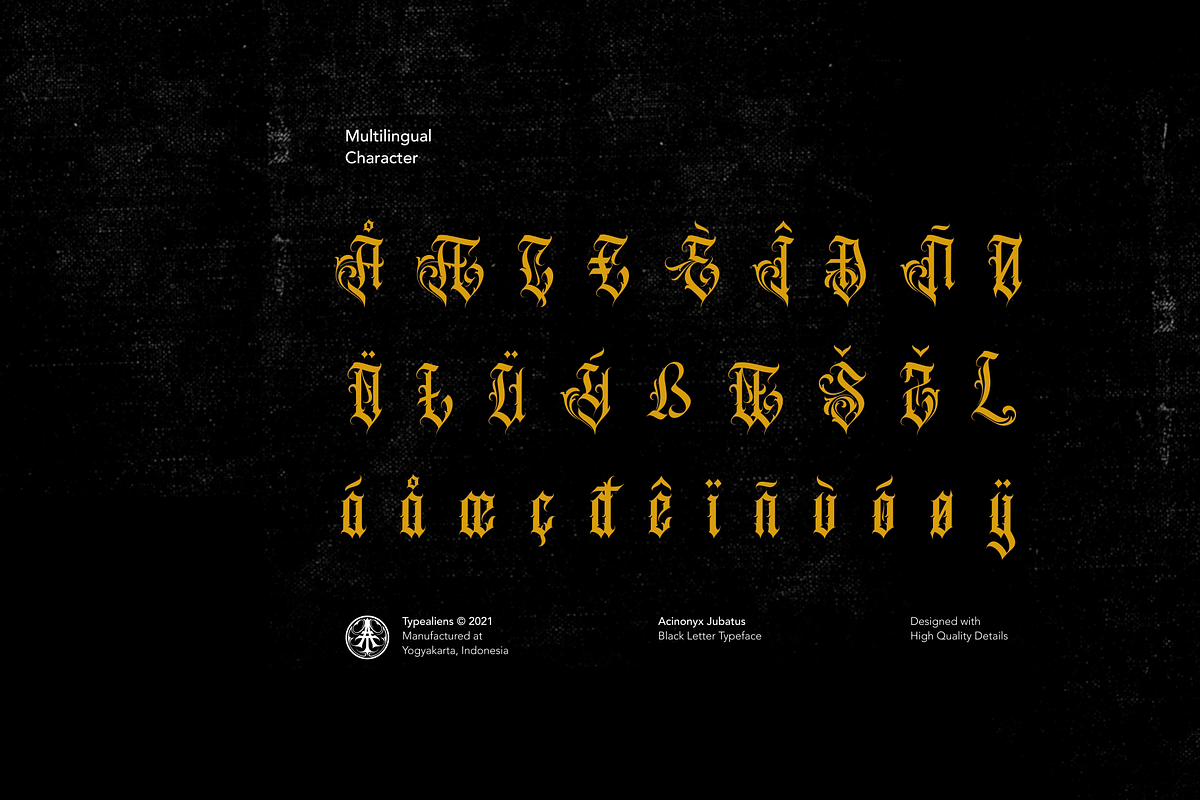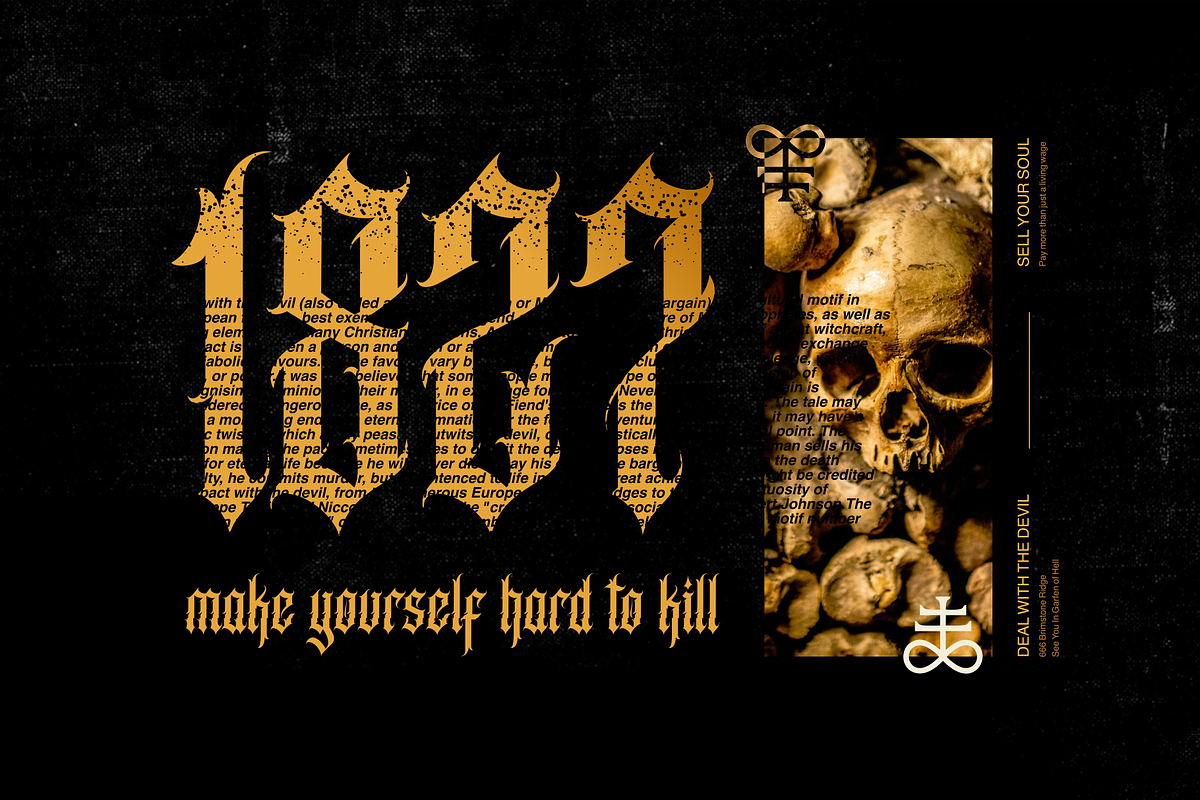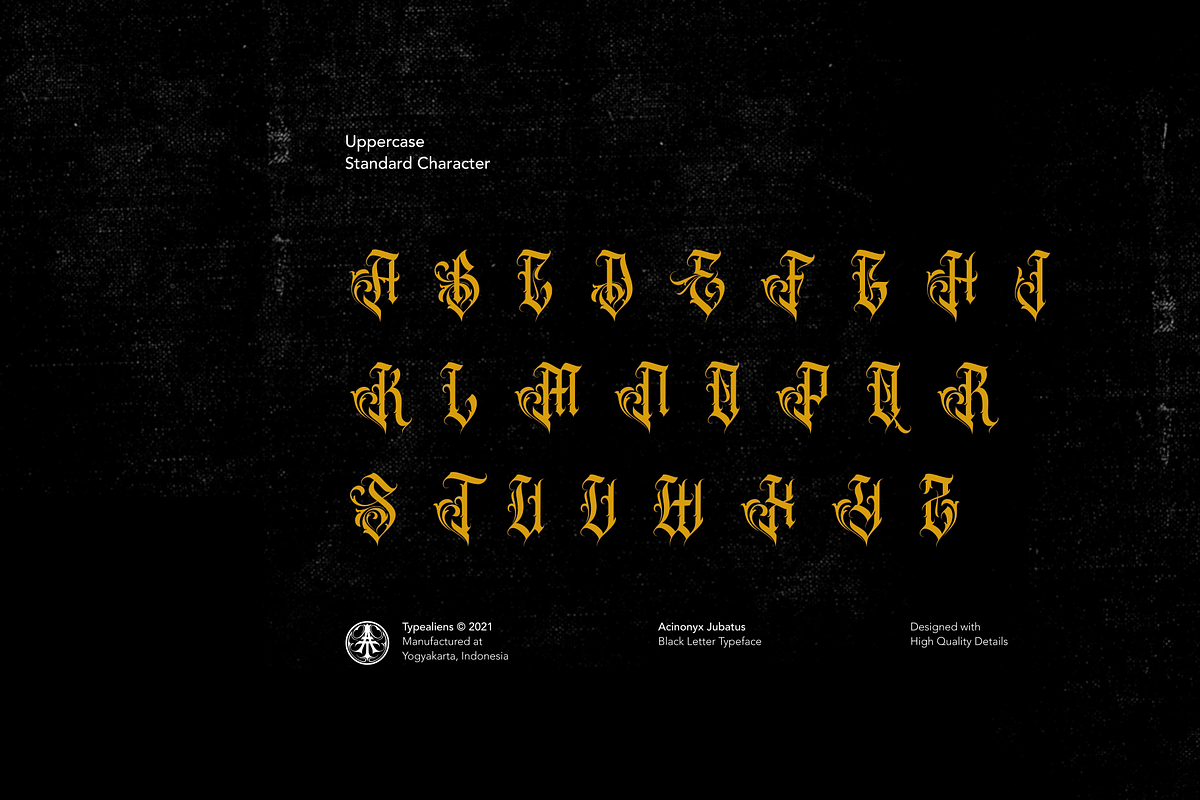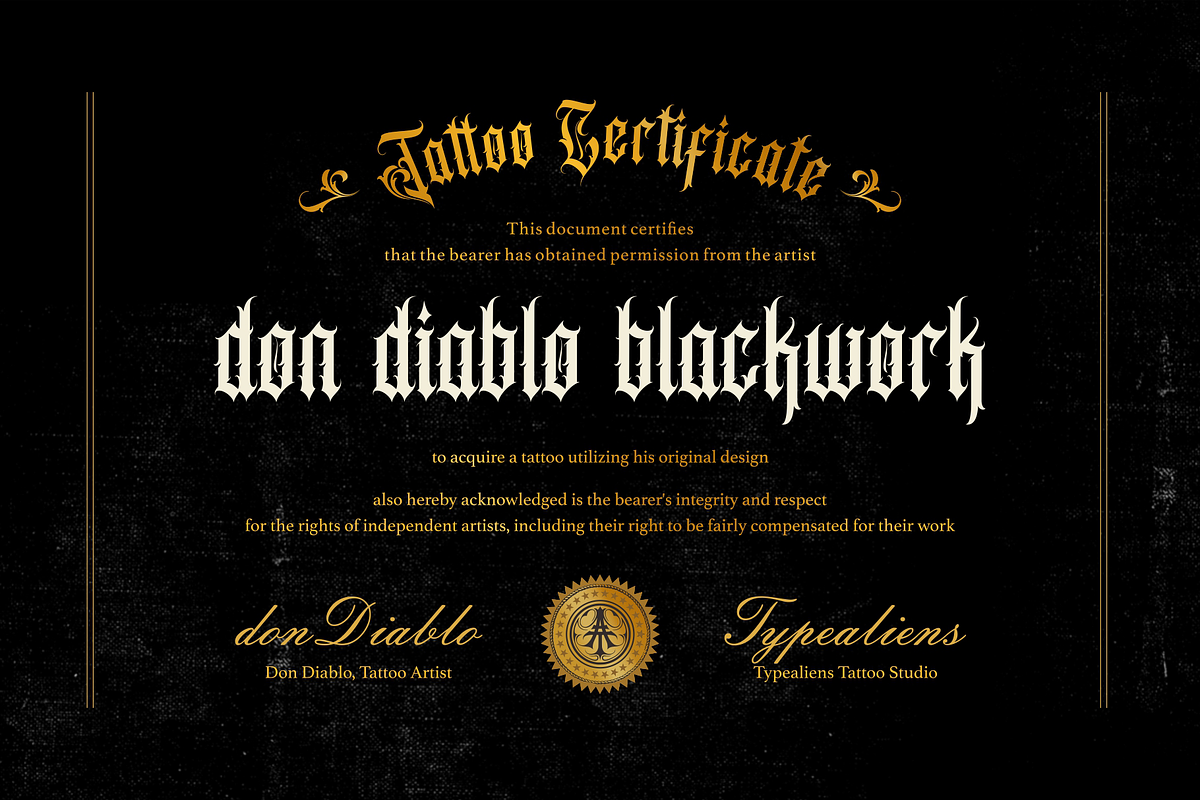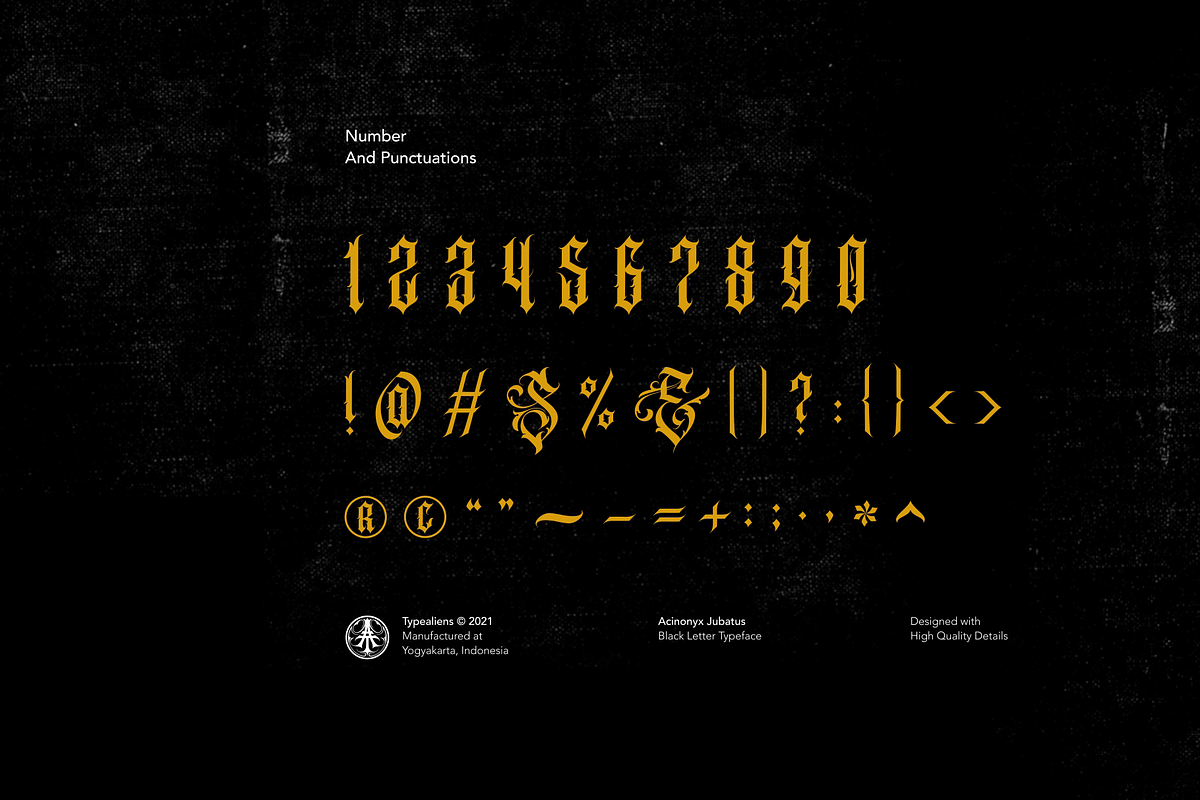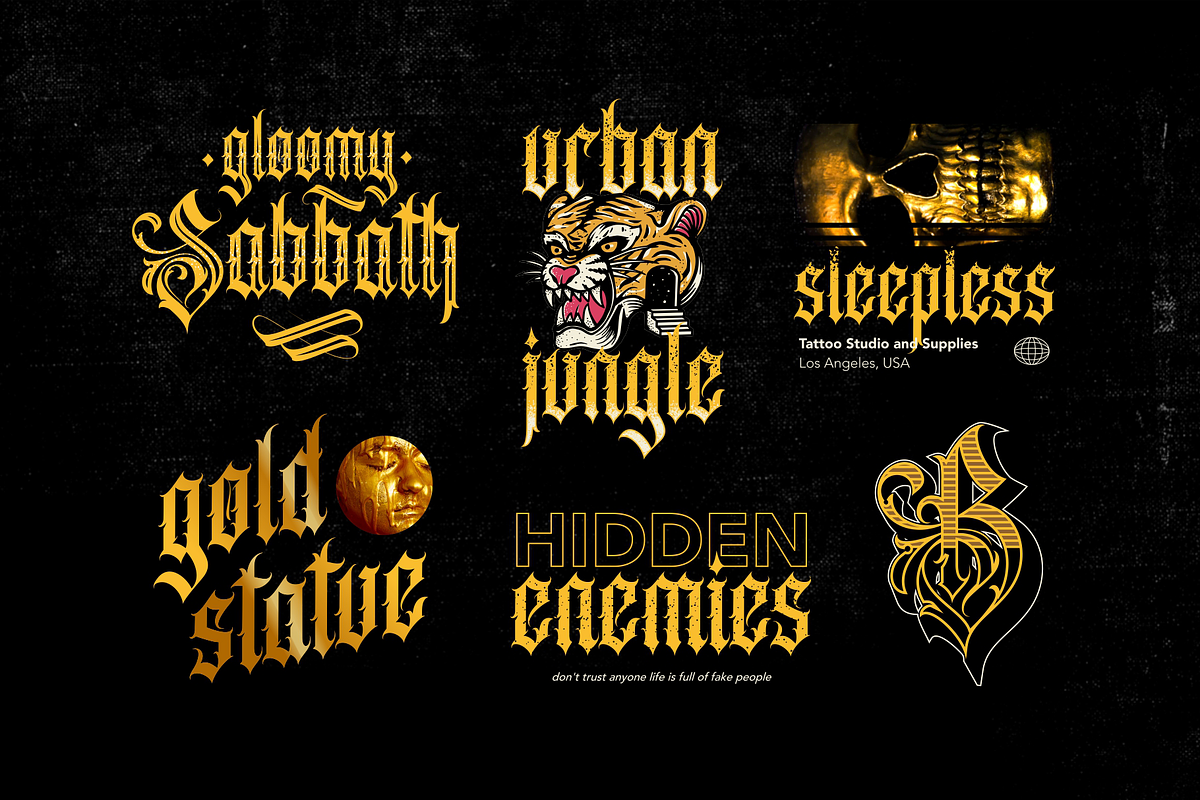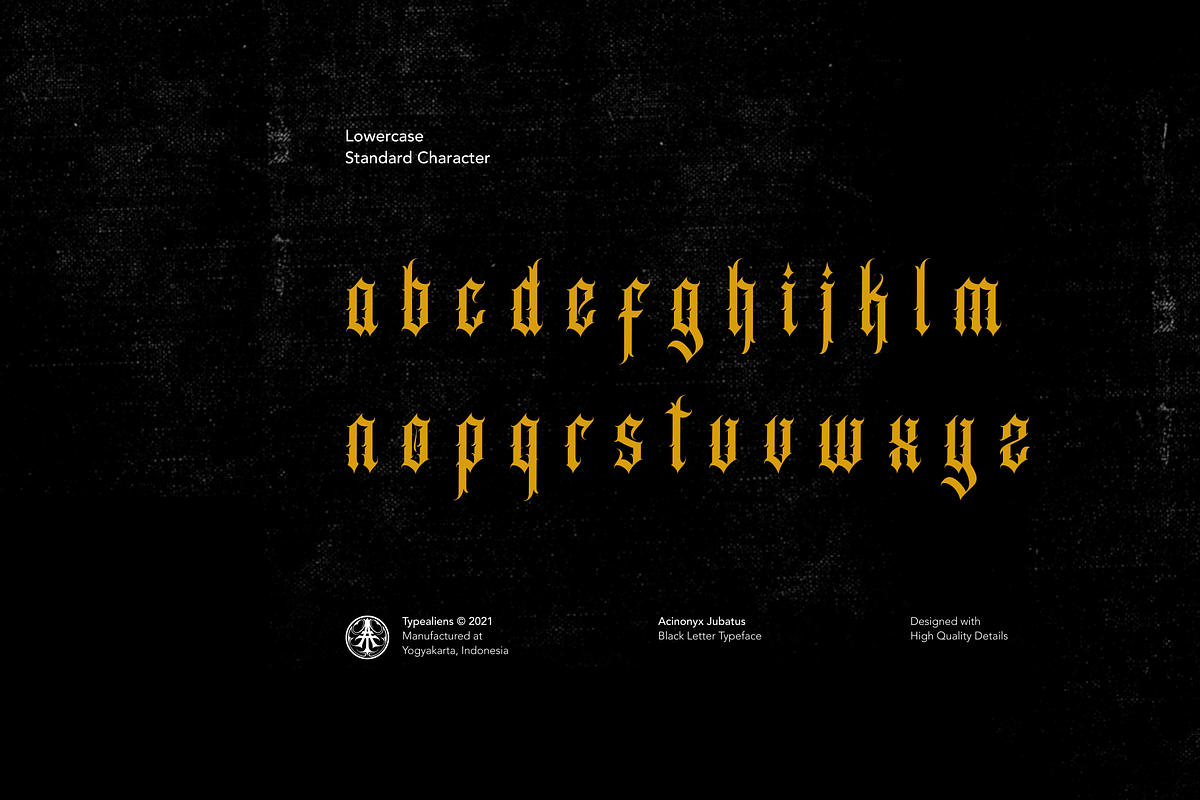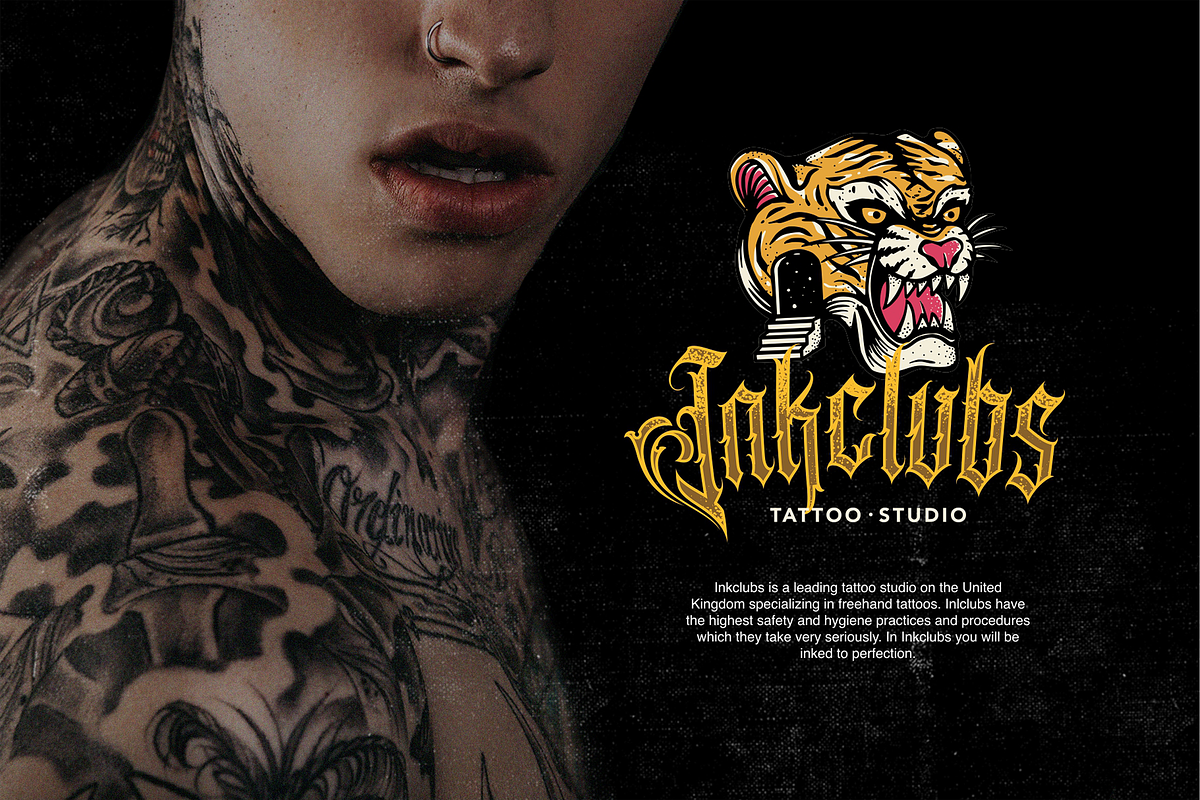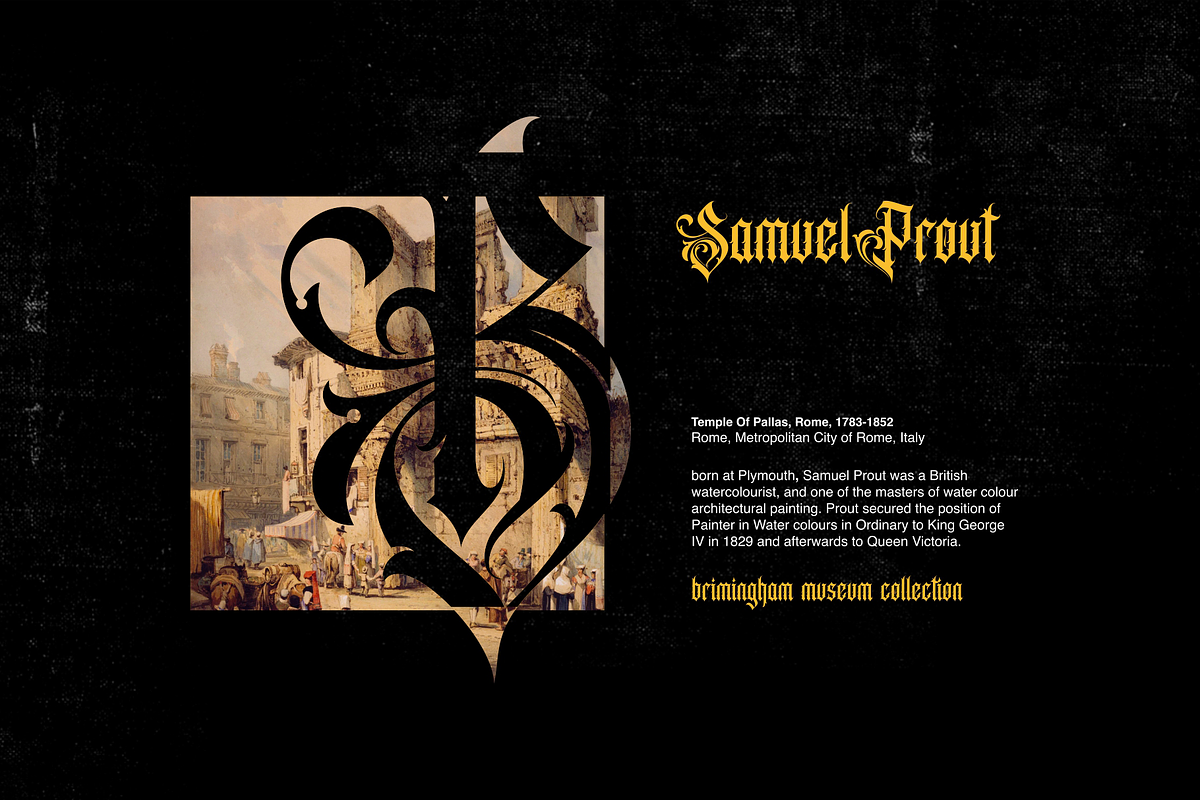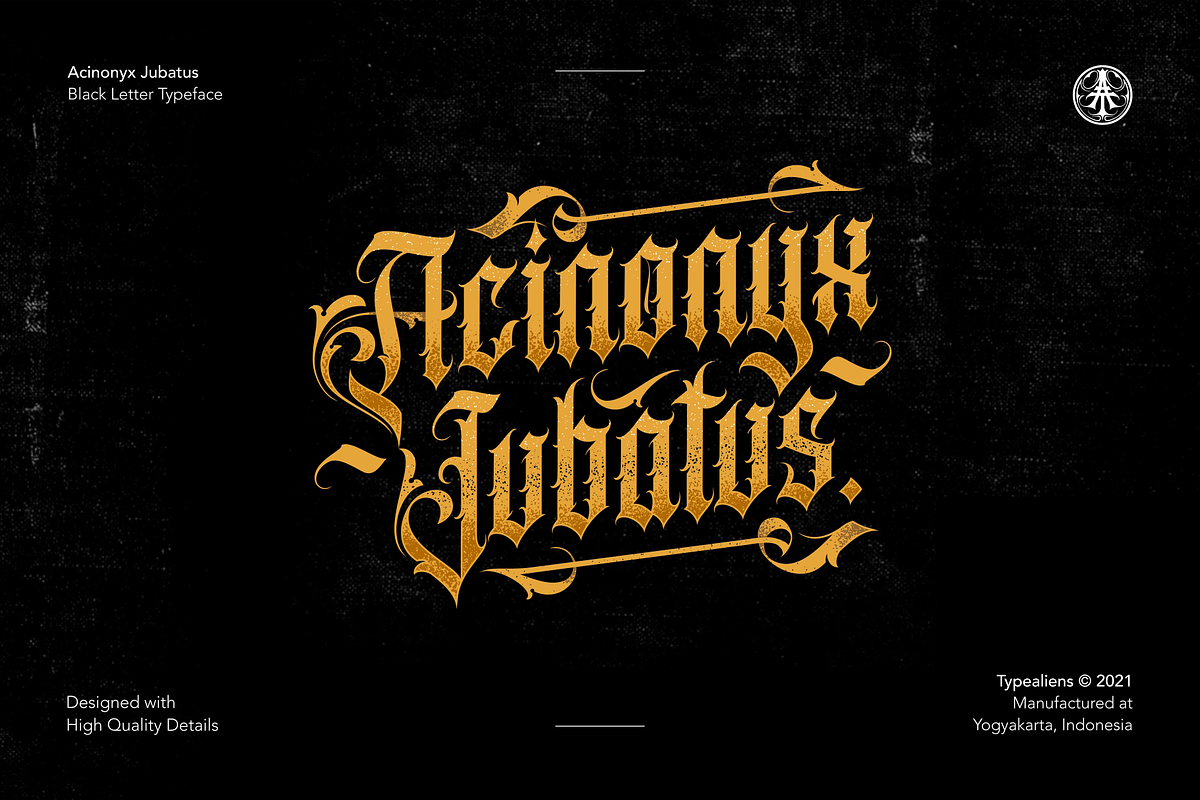
Acinonyx Jubatus
ACINONYX JUBATUS
Acinonyx Jubatus is a modern Blackletter font with a vintage feel. It is perfect for designing tattoo logos or lettering tattoo designs. A font with ornamental style as its characteristic, making this font quite ready to compete with other Blackletter fonts.